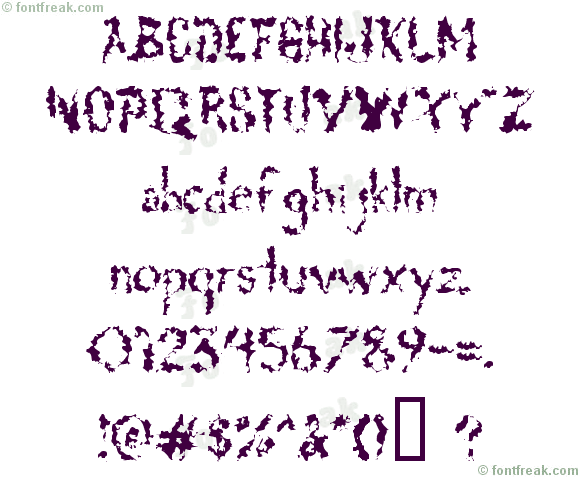
About Deadgrit
Deadgrit, created by Astigmatic One Eye in 1996, is a distinctive display font that captures the essence of rugged charm with an artistic flair. This freeware typeface stands out with its unique blend of bold character and playful irregularities, making it an excellent choice for projects that require a touch of personality. The font features a medium stroke weight that varies across its letters, providing a strong visual impact while maintaining a sense of warmth. With its organic shapes and deliberate imperfections, Deadgrit embodies a hand-crafted aesthetic that appeals to a variety of creative applications.
Visually, Deadgrit showcases a whimsical style characterized by its lively curves and quirky ascenders and descenders. The overall spacing is well-balanced, allowing for easy readability while enhancing its decorative qualities. The font's playful nature makes it particularly suited for use in creative projects such as movie posters, where it can evoke excitement and intrigue. It also works wonderfully for branding small businesses, especially in the food and beverage industry, such as restaurant menus that aim to convey a casual and inviting atmosphere. Additionally, Deadgrit is a great choice for event flyers and promotional materials, capturing attention with its bold personality.
The target audience for Deadgrit includes graphic designers, small business owners, and content creators looking for a unique visual identity. Its versatility allows it to be effectively used across various media, from digital to print, making it a valuable addition to any designer's toolkit.
What makes Deadgrit truly stand out is its ability to blend artistic expression with practical usability. This font offers a fresh alternative to conventional typefaces, enabling creators to infuse their work with character and originality. For those interested in adding this unique typeface to their collection, a Deadgrit font free download is available, allowing you to explore its vibrant possibilities.